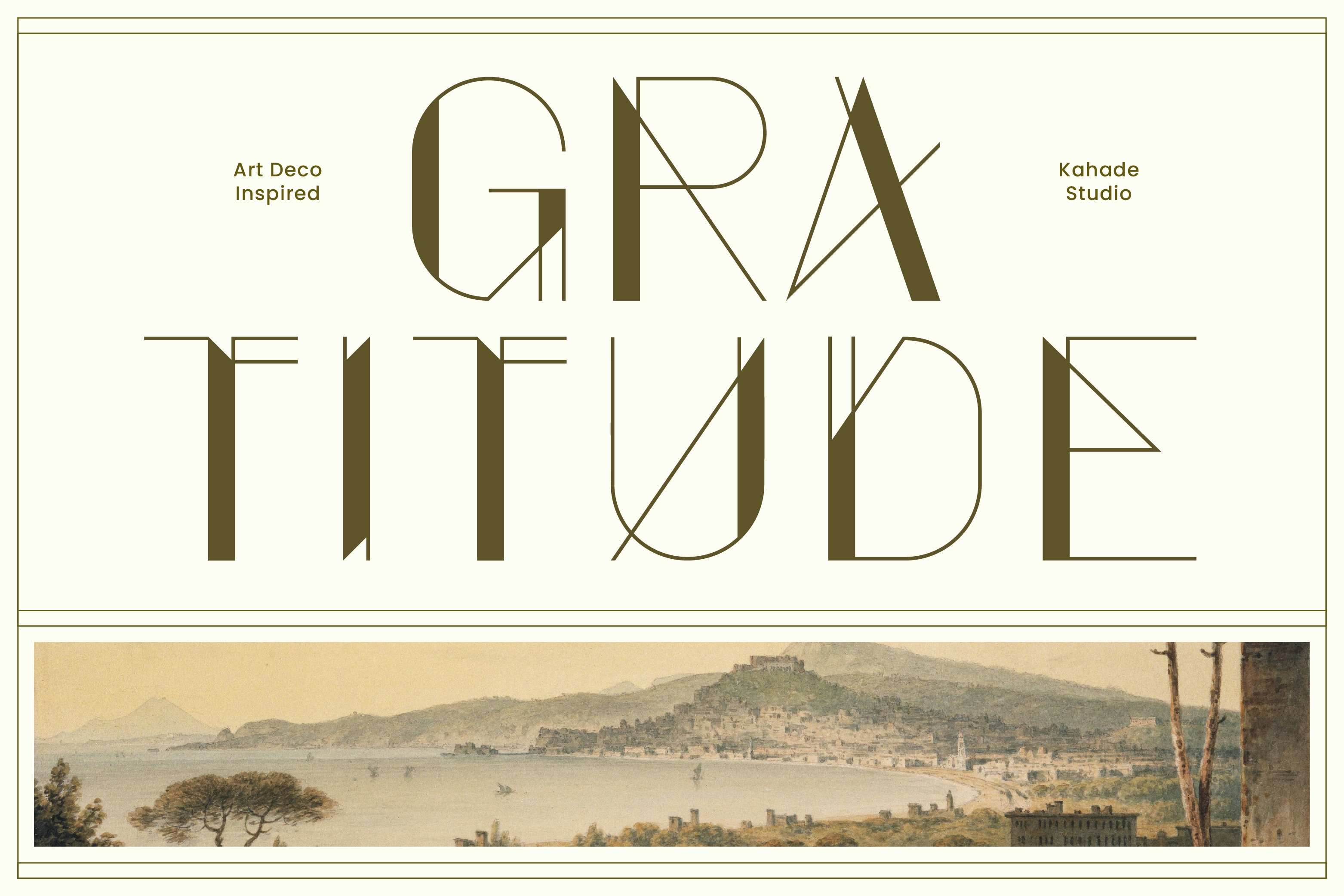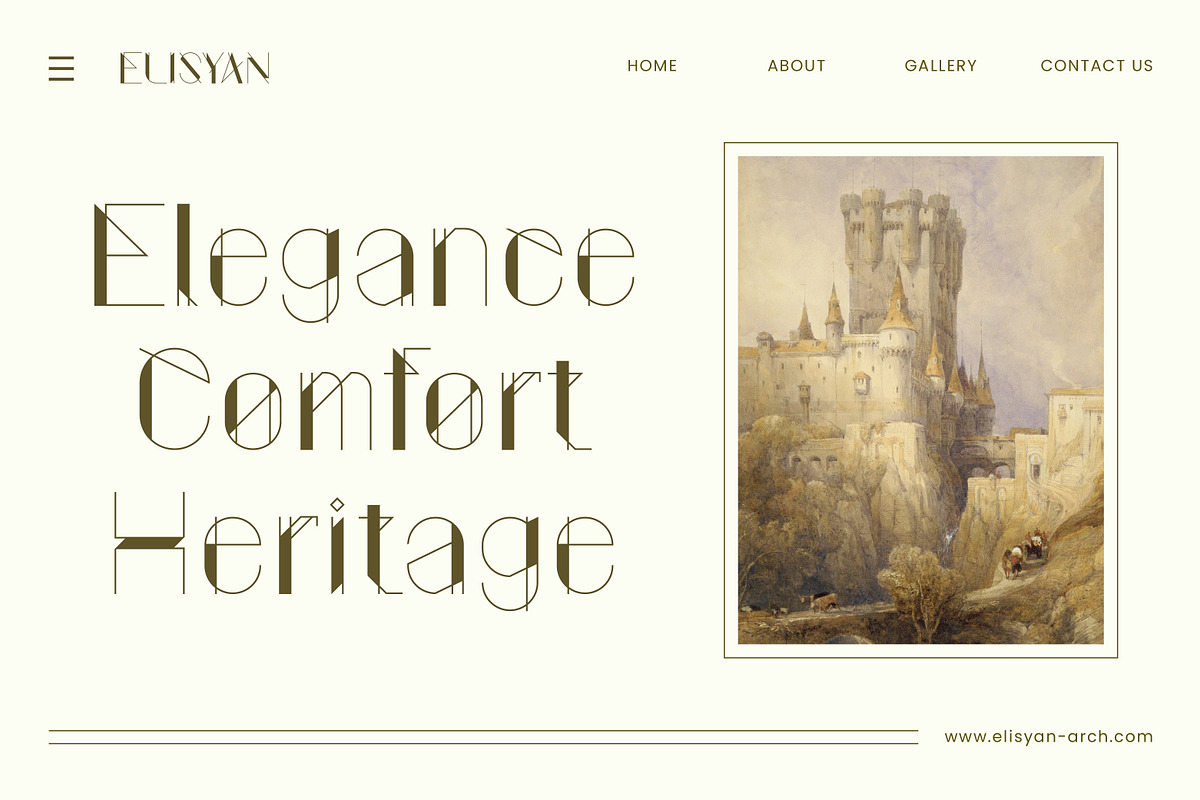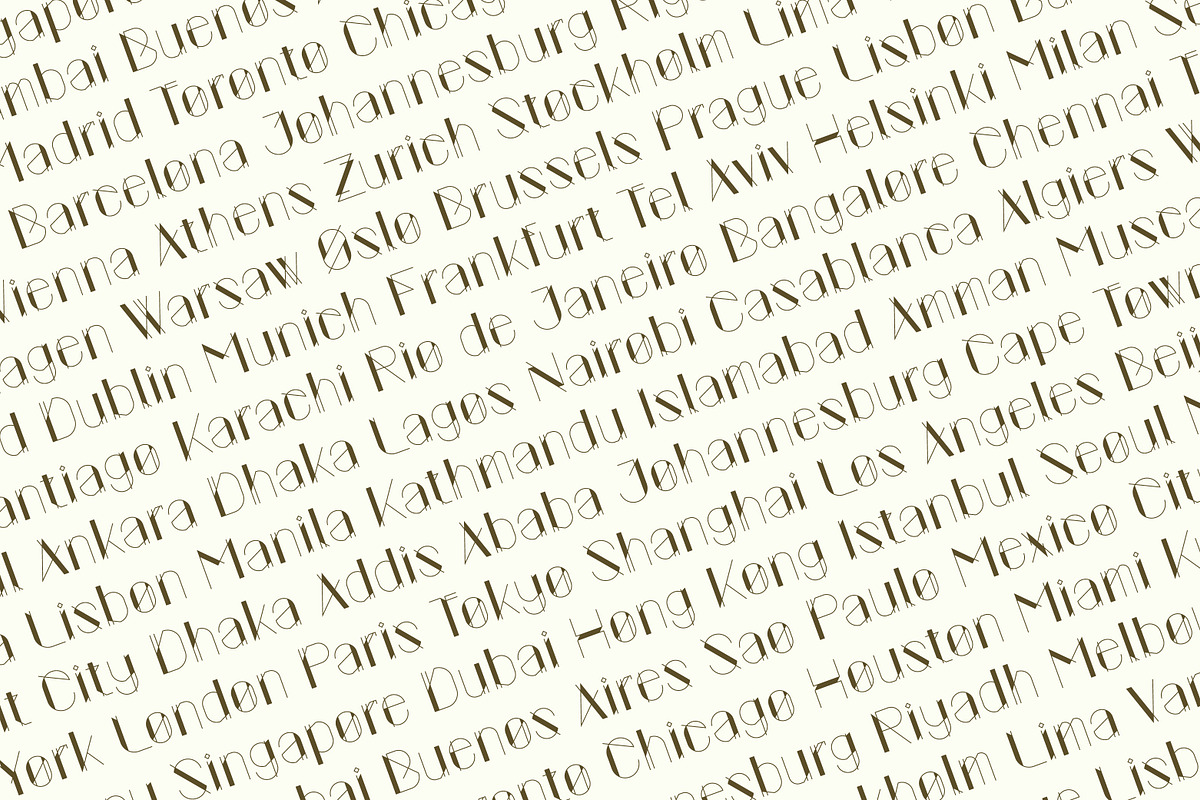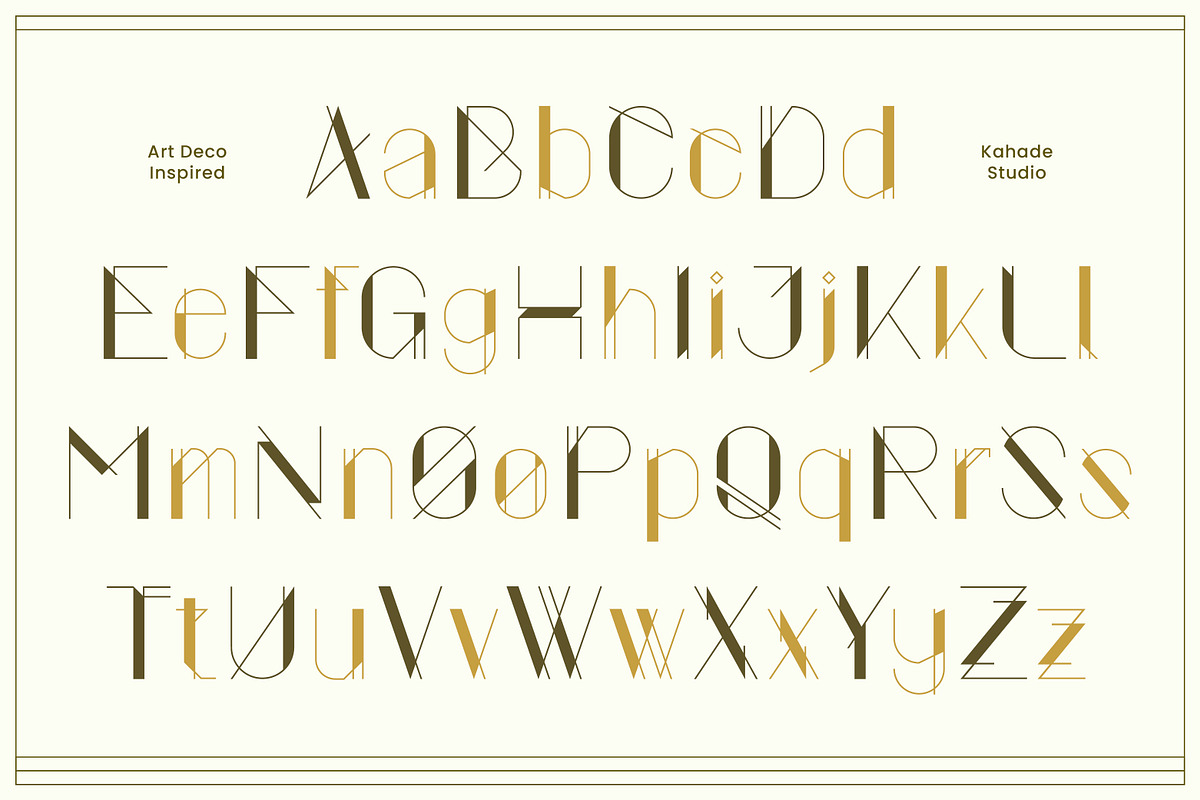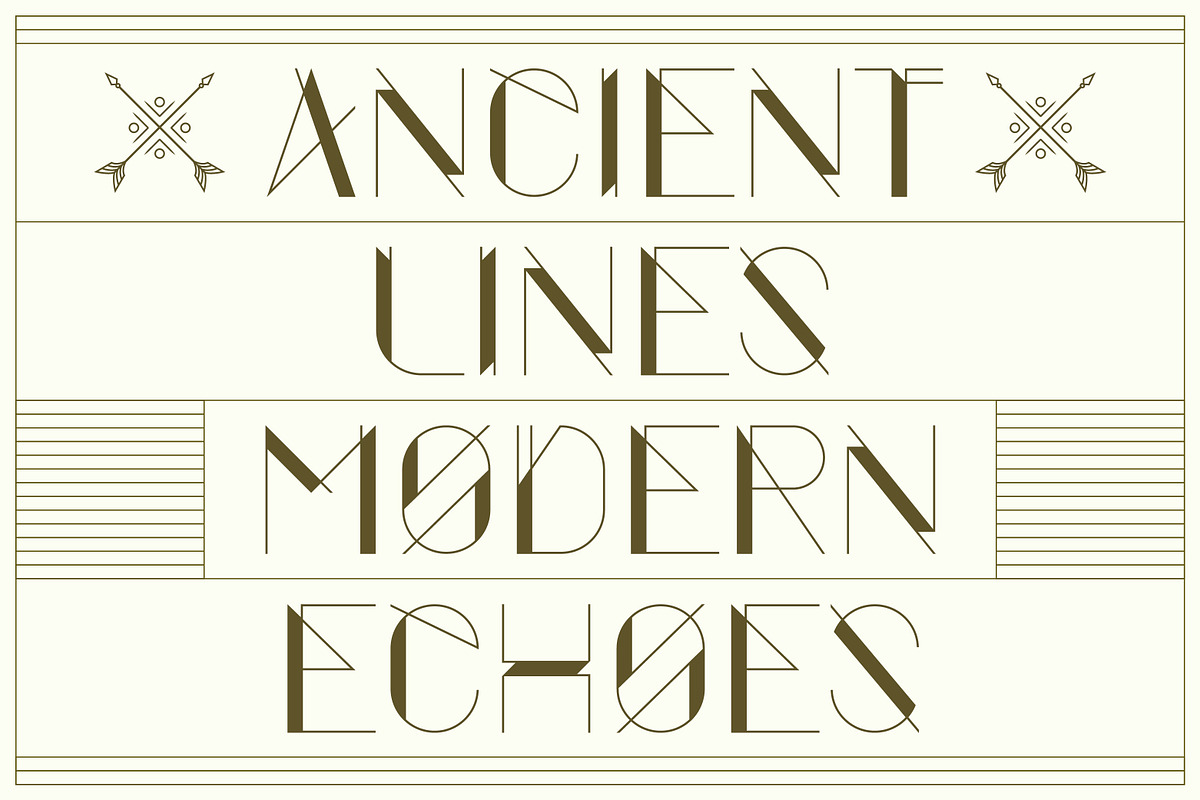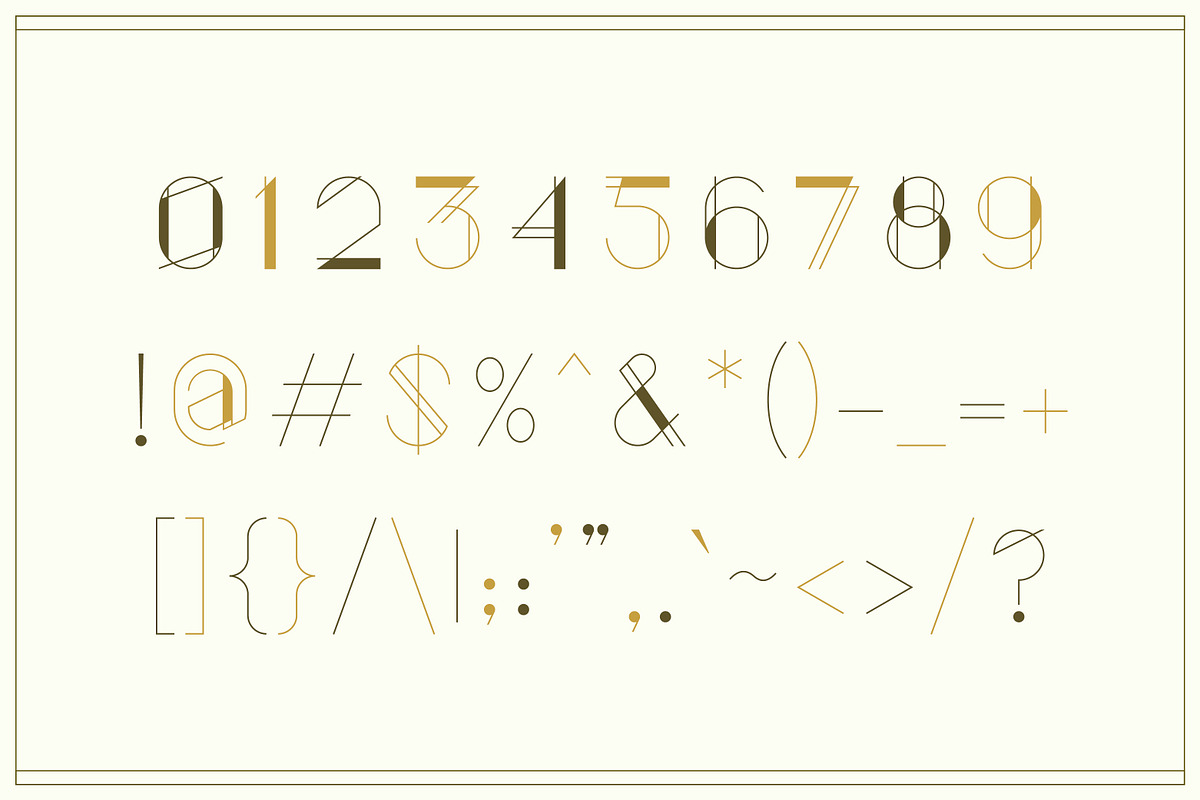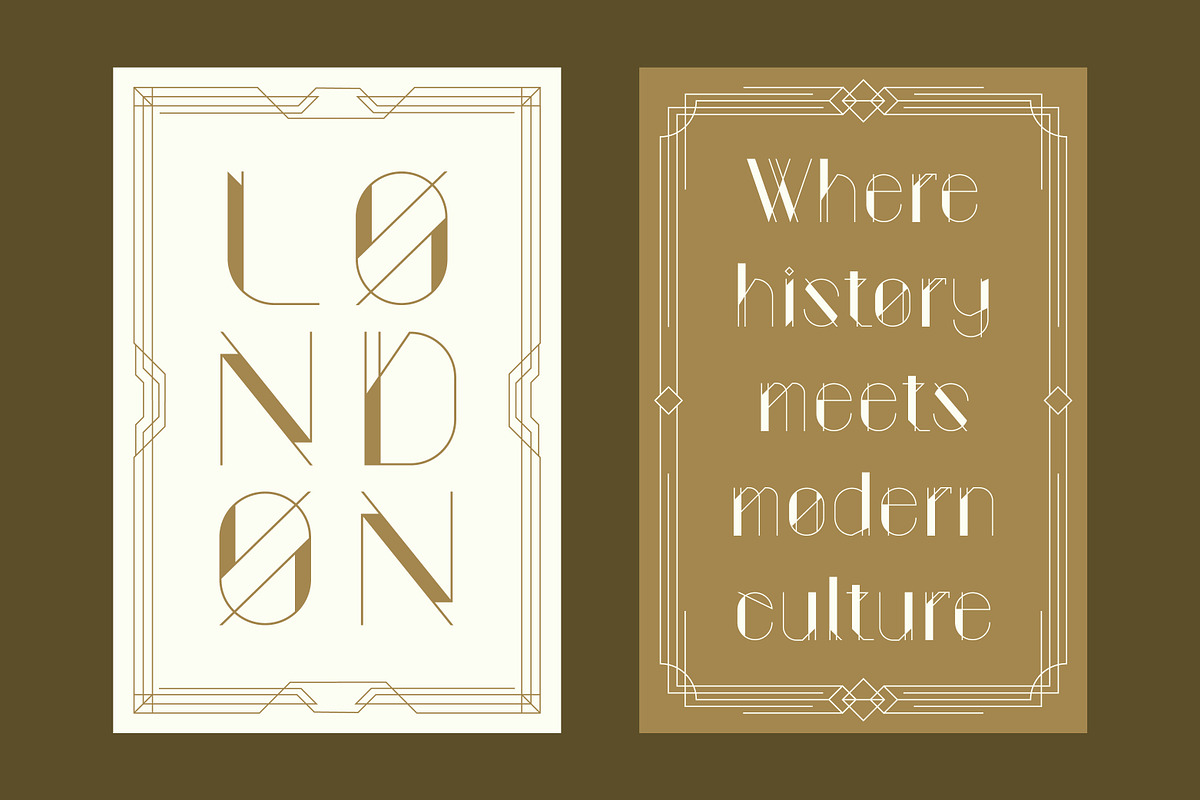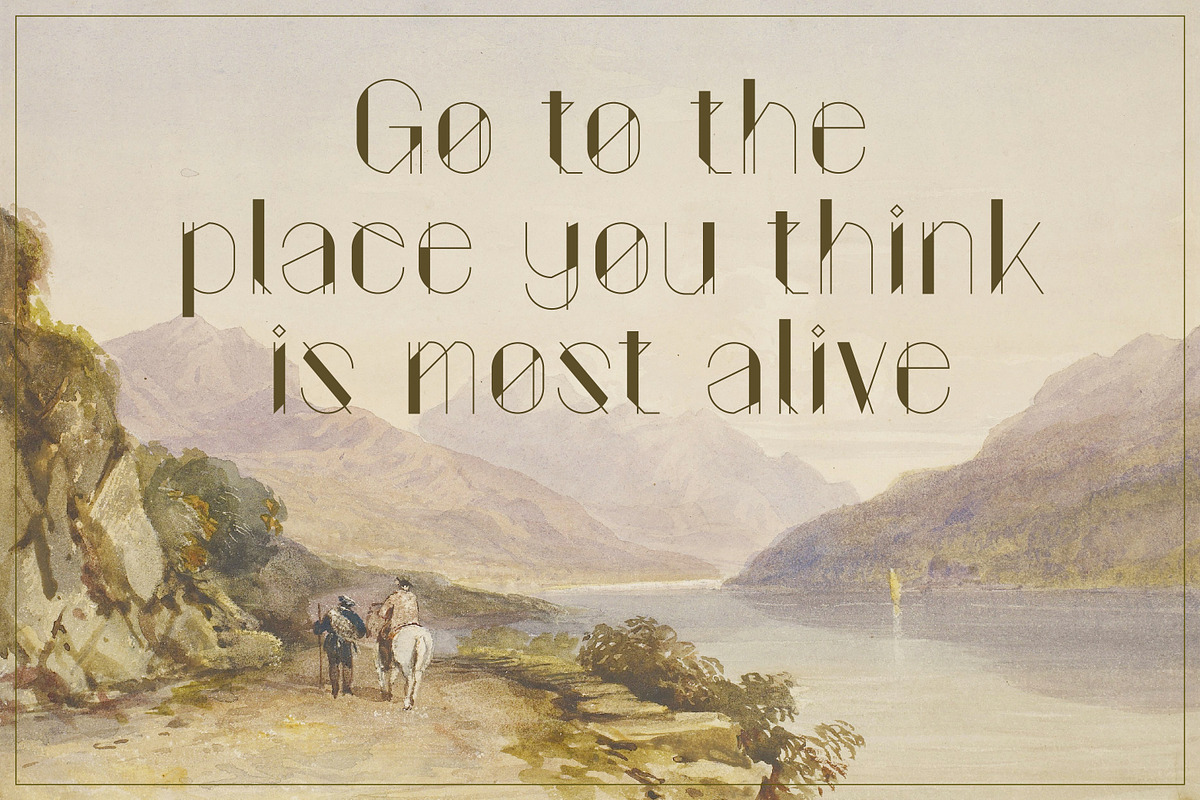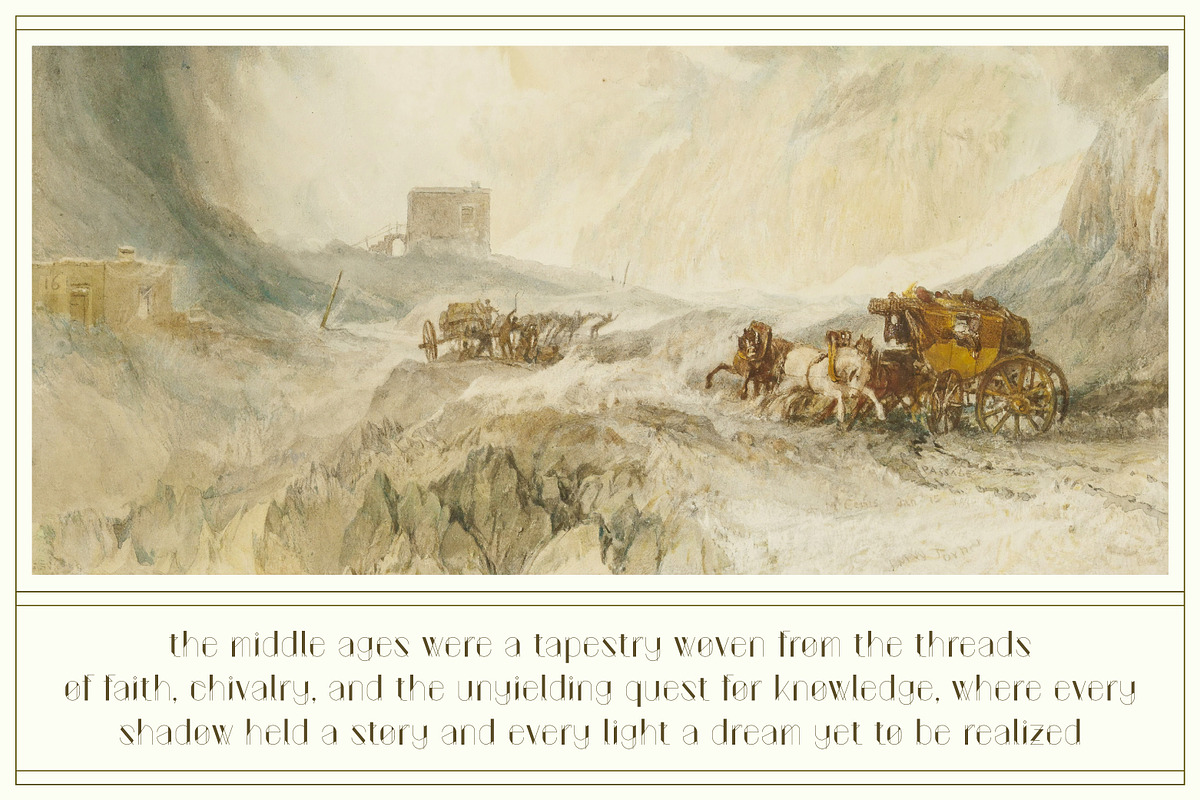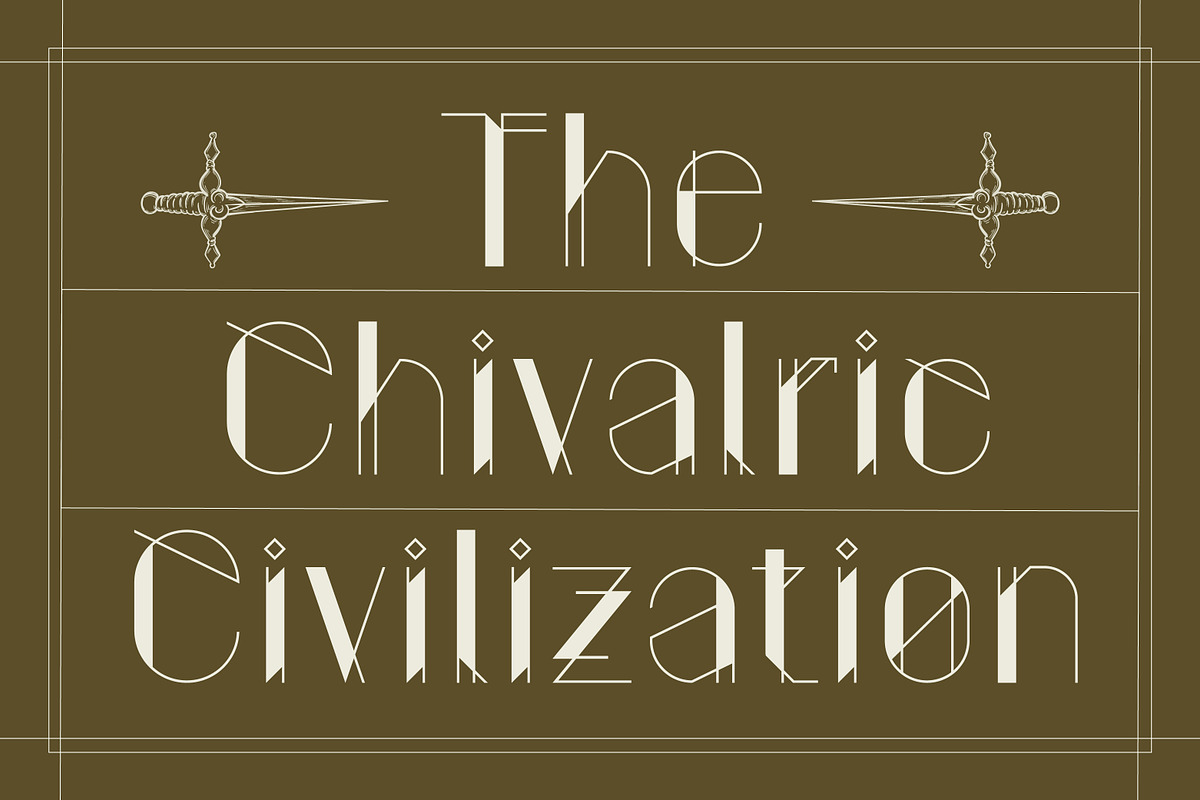
Gratitude - Art Deco Inspired Font
Gratitude – Elegant Art Deco Inspired Font Font. This font has a modern serif inspired by art deco style. This font has a combination of neat and perfect lines, giving a modern and elegant impression with a touch of classic art deco nuance.. Suitable for your various special project needs.
- Uppercase Character
- Lowercase Character
- Number & Punctuation